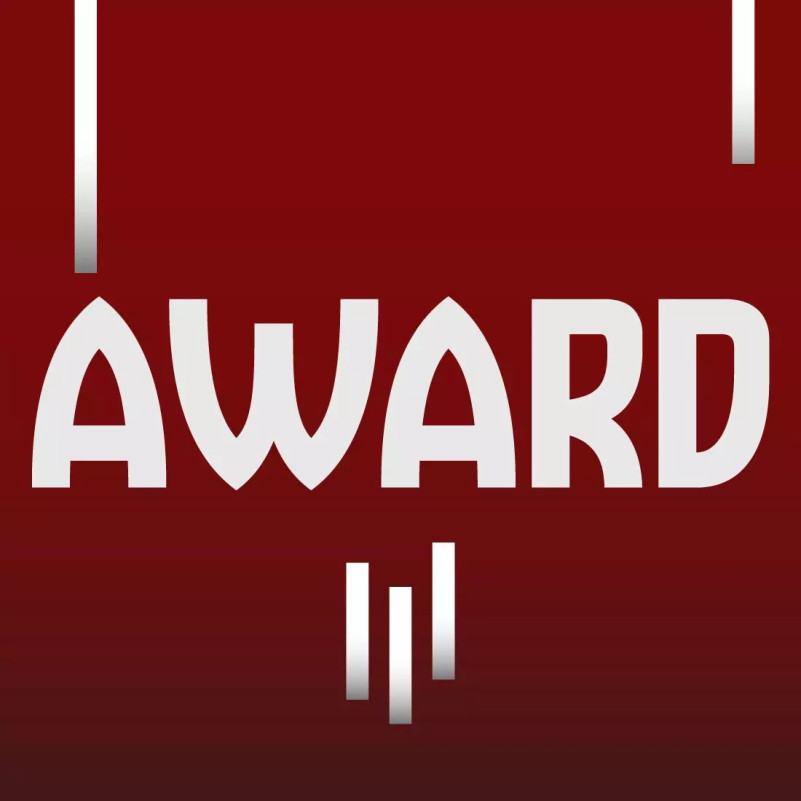
Award Font
Award Sans Serif Font is a new font that I made it. It is designed to keep all angles symmetrical and give off a more friendly and human feel. It’s great for display project and branding.